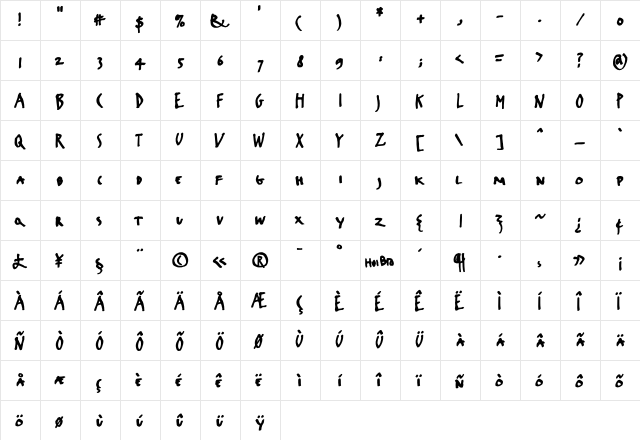
FFErikrighthand-Caps Regular Font Preview
FFErikrighthand-Caps Regular
Design Context for FFErikrighthand-Caps Typeface
FFErikrighthand-Caps flows with the natural rhythm of handwritten lettering, making it ideal for designs that call for warmth and personal expression.
Font Pairing: Combine FFErikrighthand-Caps with a simple geometric sans for maximum contrast — the tension between flowing curves and clean structure is a classic typographic pairing.
Pro Tip: Use FFErikrighthand-Caps for short runs of text — names, titles, or taglines. Extended body copy in script faces tires the eye quickly.